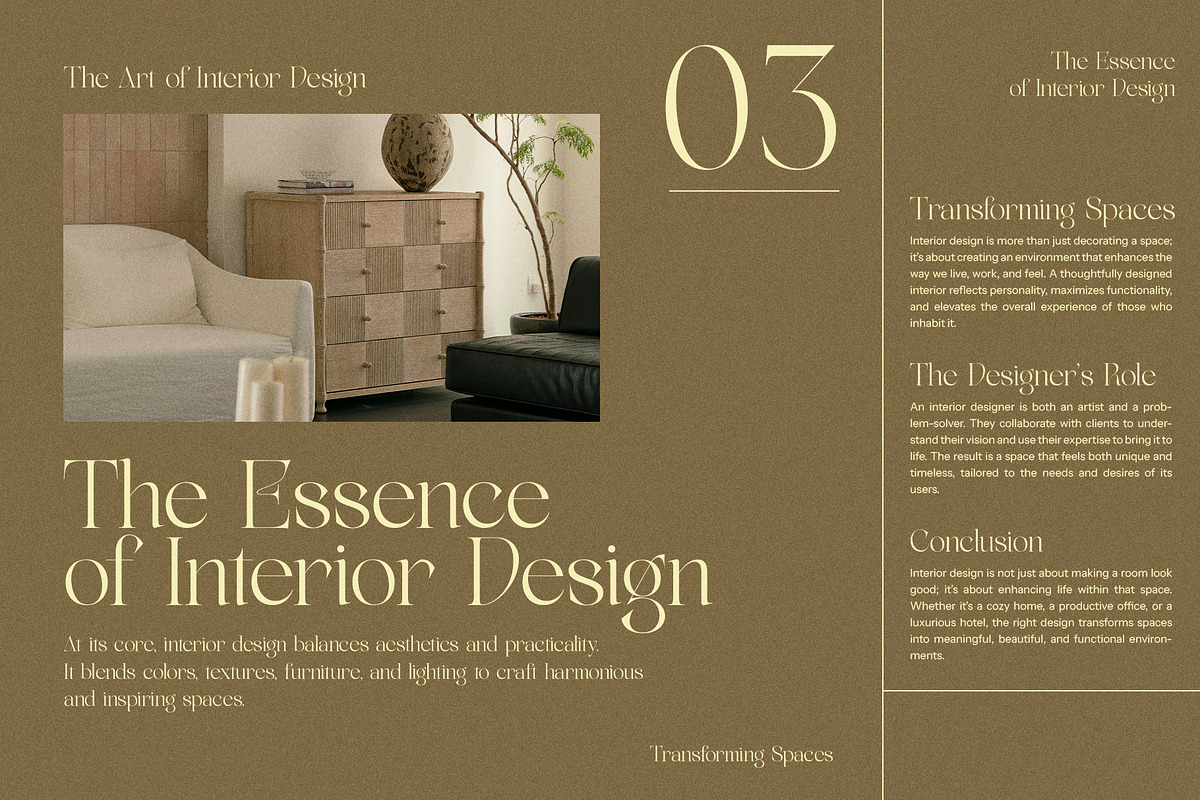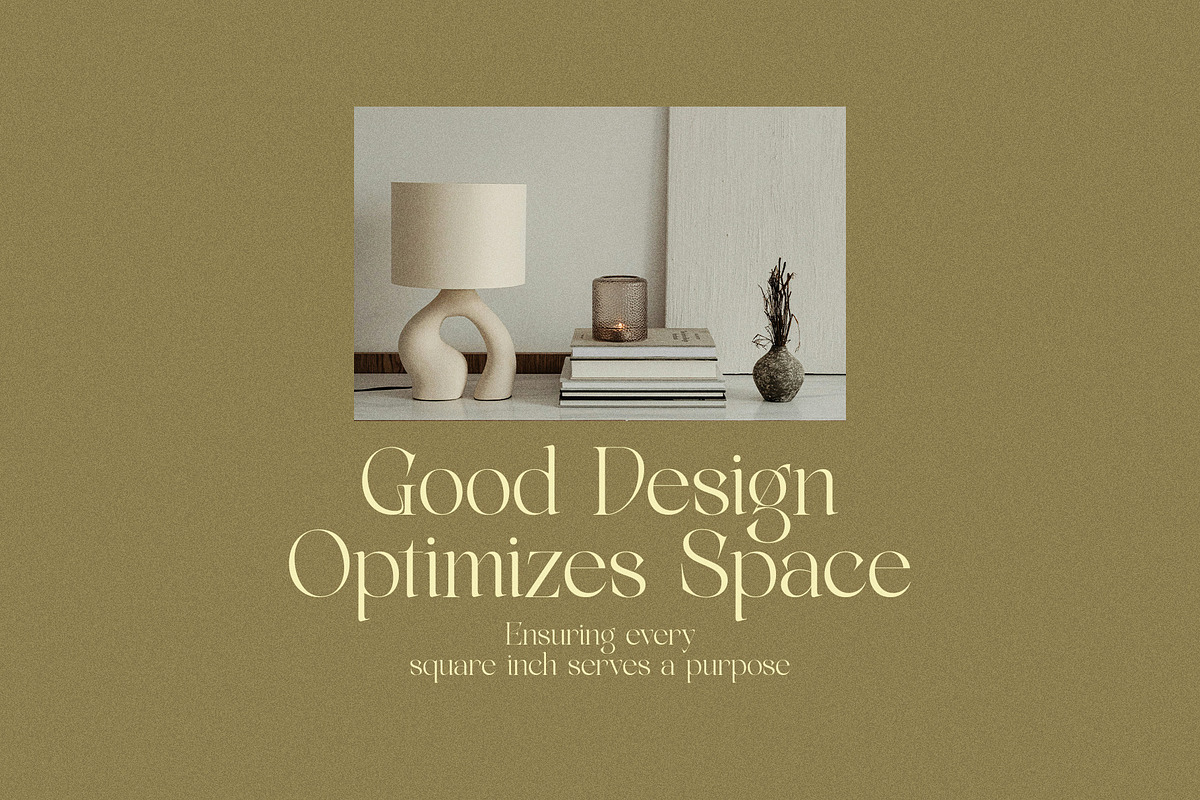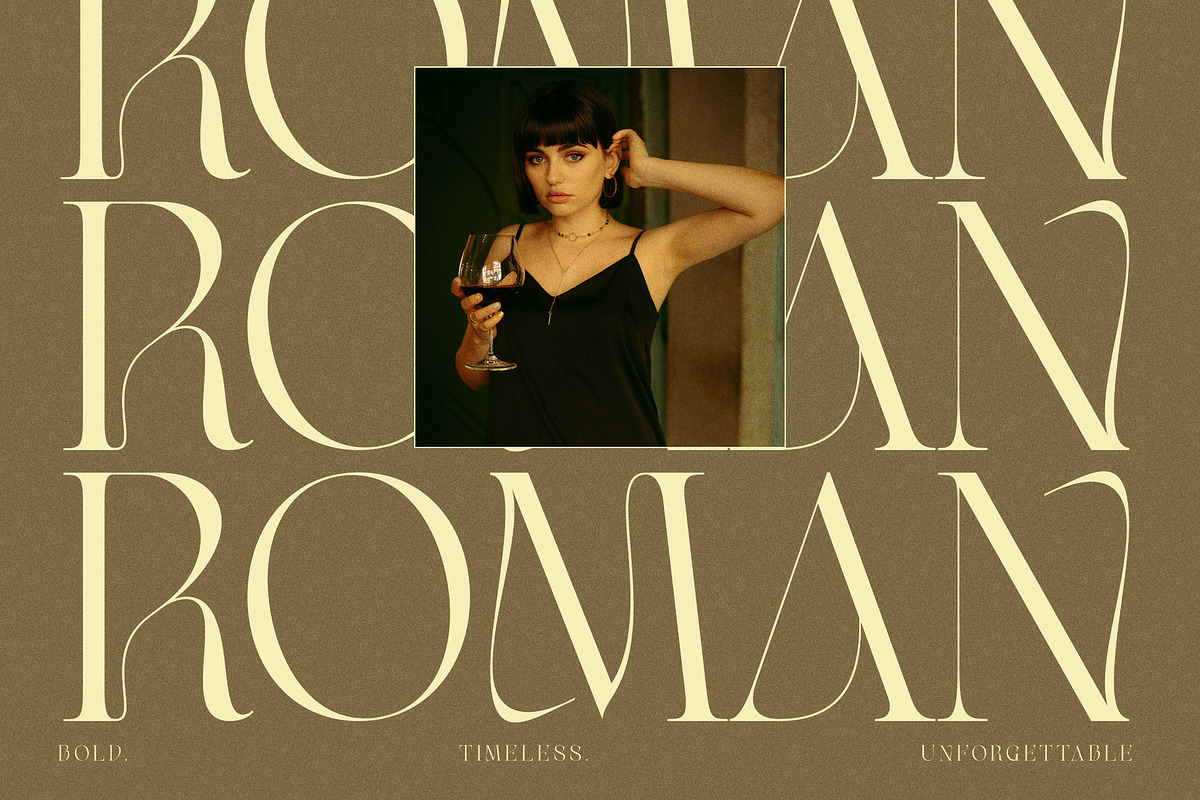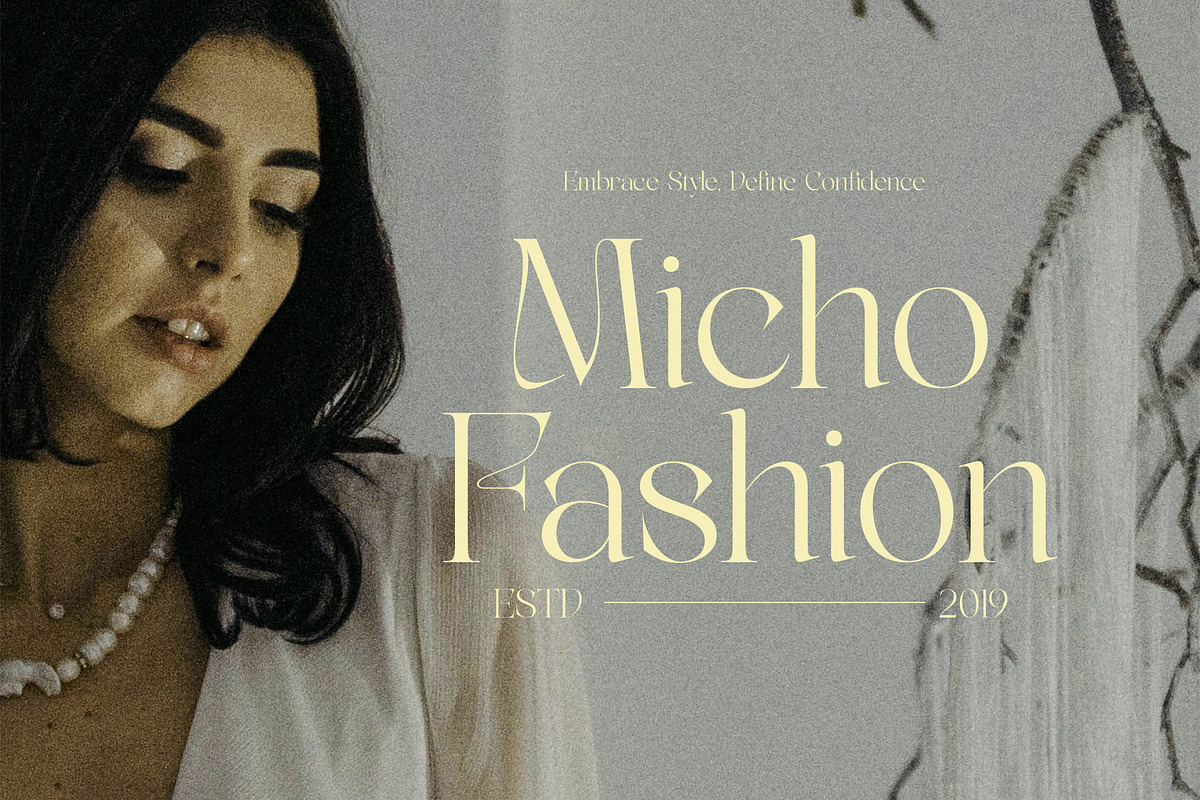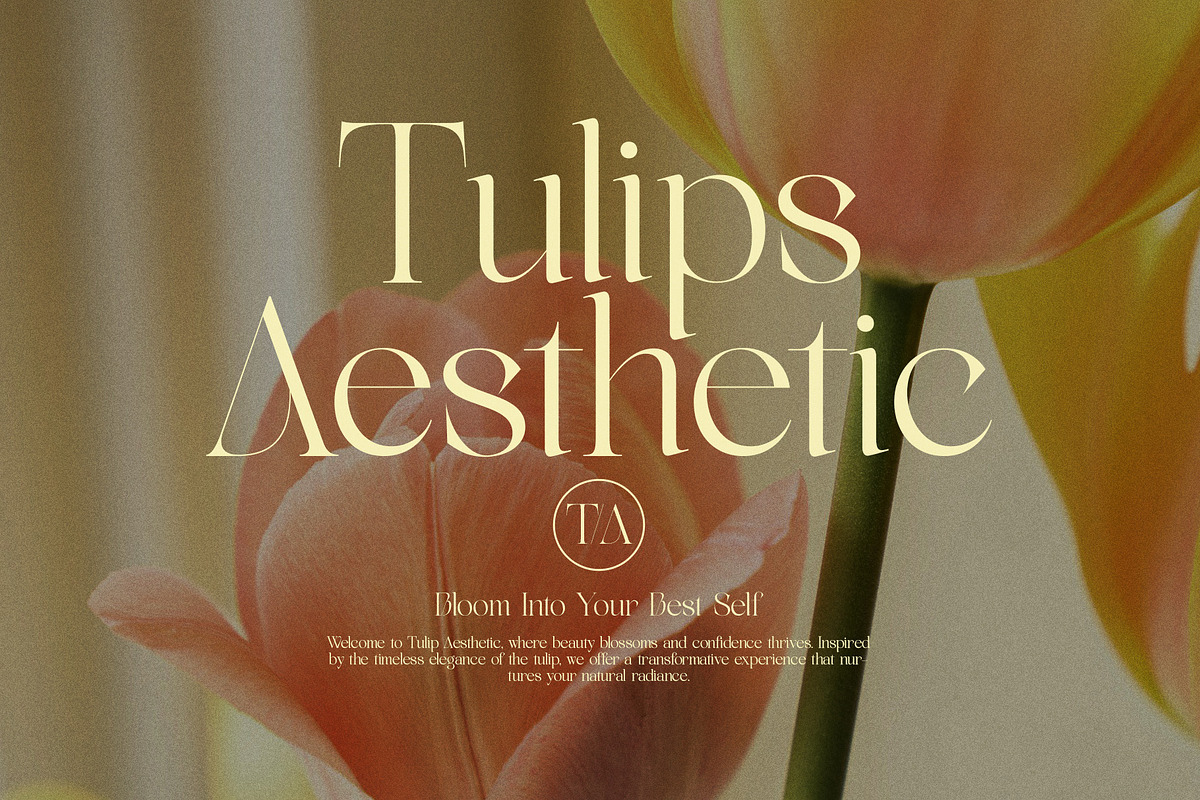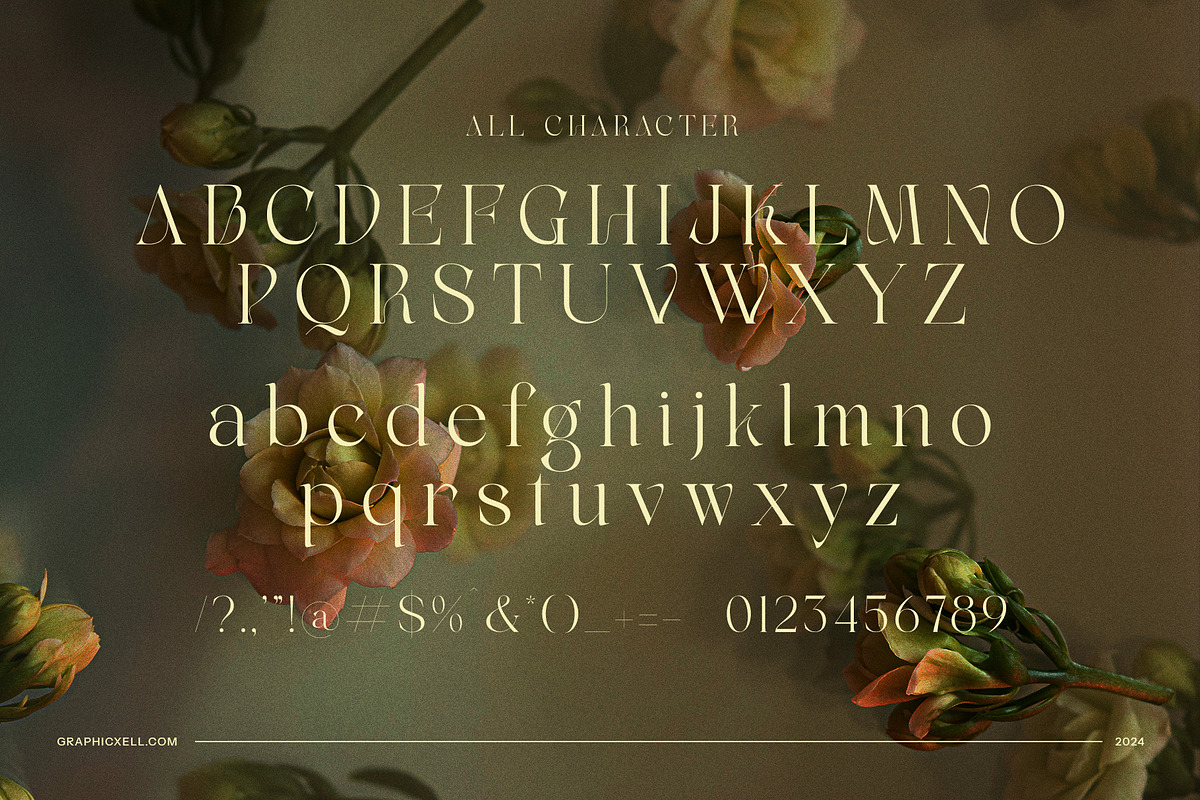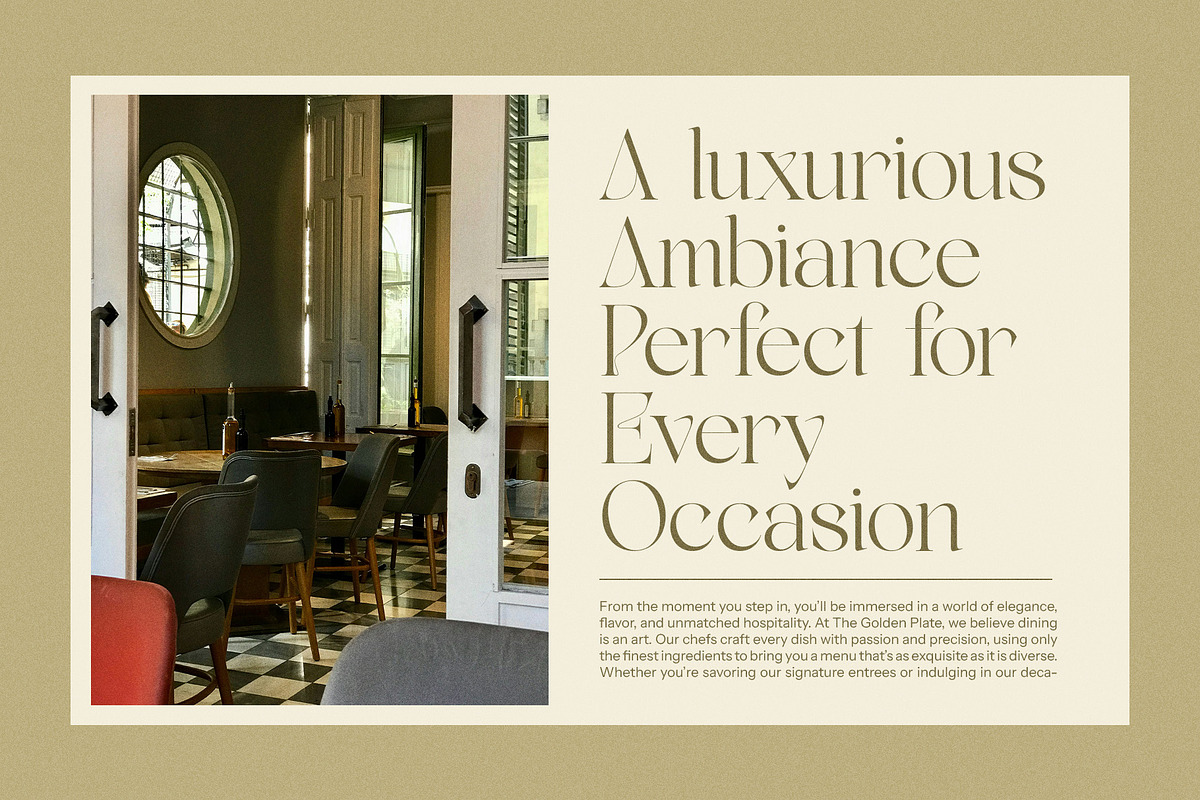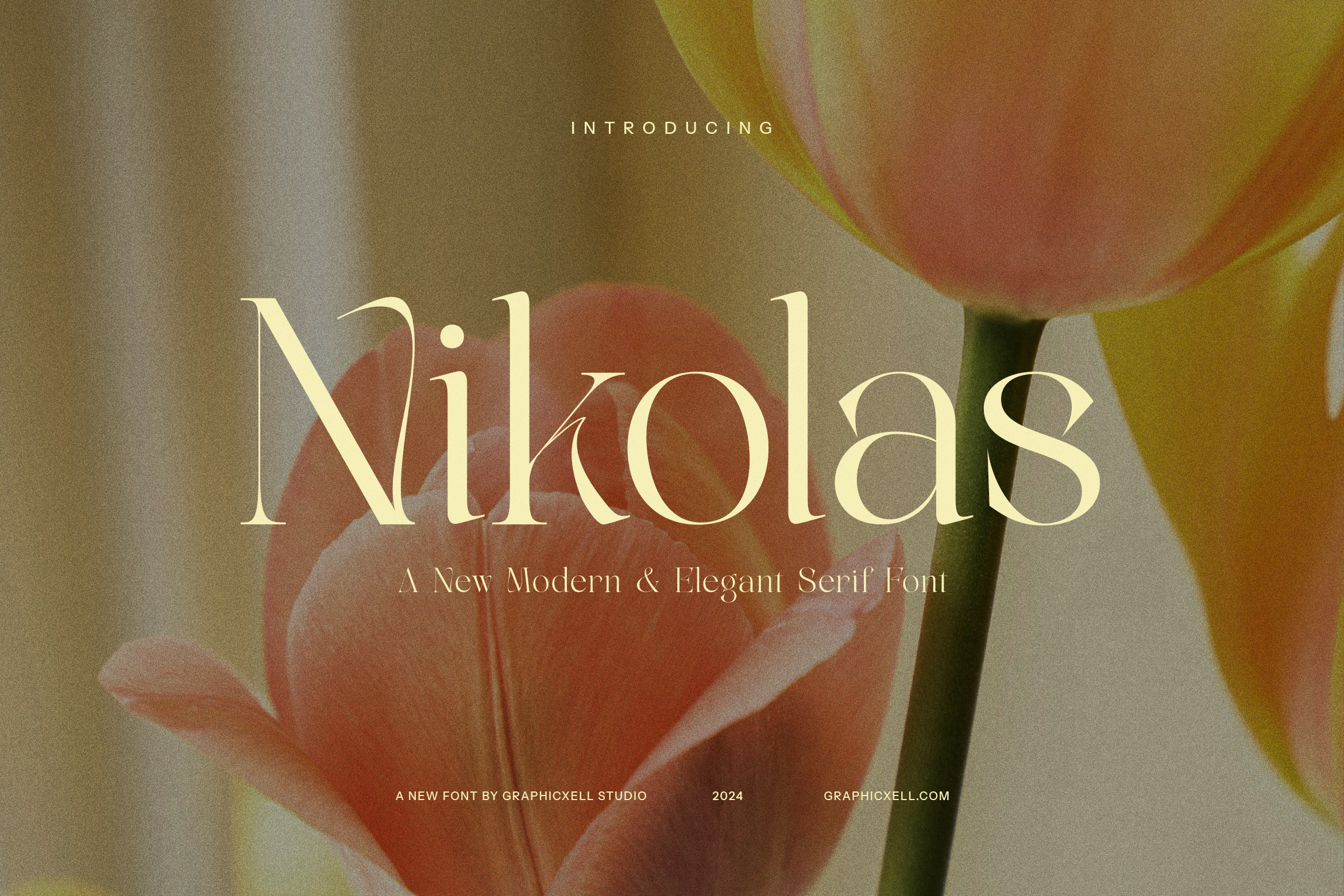
Nikolas Modern Serif Font
Nikolas Modern Serif Font is a refined and sophisticated typeface designed to bring a touch of elegance and modernity to your creative projects. With its sleek serifs and stylish curves, this font blends timeless tradition with contemporary flair, making it a perfect choice for a variety of design needs. Its unique and balanced structure ensures readability while maintaining a chic, high-end feel that is ideal for luxury branding, high-quality print materials, and digital platforms alike.
Whether you're designing a logo, website, or magazine layout, Nikolas Modern Serif stands out with its ability to elevate any project. The versatility of this font makes it suitable for everything from upscale boutiques and fine dining restaurants to trendy fashion brands and professional advertisements. Its elegant lines and refined character make it a go-to option for designers seeking a balance between contemporary aesthetics and classic appeal.
Nikolas Modern Serif is not only a beautiful display typeface but also an excellent choice for body text, thanks to its well-crafted legibility at various sizes. Its timeless style adds a sense of authority and grace to any design, from corporate branding to editorial work, making it a versatile tool for any creative professional. Whether for print or digital, this font brings an air of sophistication and charm that is sure to leave a lasting impression.